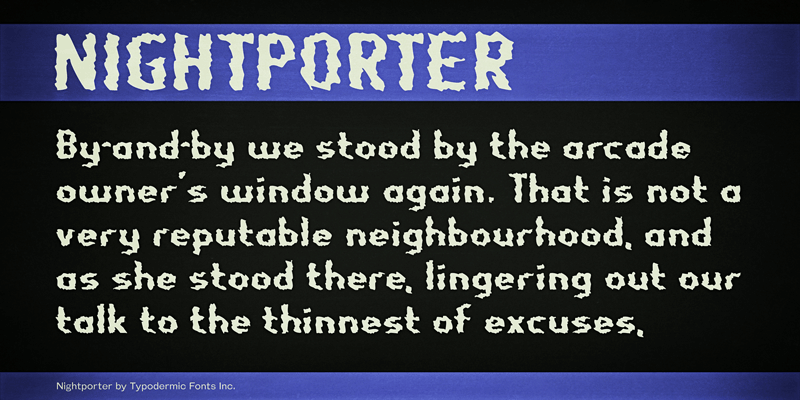
Preview and download Nightporter Font. Created by Typodermic Fonts in Fancy Distorted styles with 100% Free license.
Nightporter is a shuddersome, phantasmal headline moaner. This font includes a license that allows free commercial use: sometimes referred to as a desktop license. This allows you to install the font on a computer and use it to create posters, web graphics, game graphics, t-shirts, videos, signs, logos and more. Read the license agreement for details. If you'd like to embed this font in an app, ebook, on the web or anything that's not covered by the desktop license agreement, visit the link below. You'll find distributors who offer different types of licenses or you can contact me for help. http://typodermicfonts.com/nightporter/ |